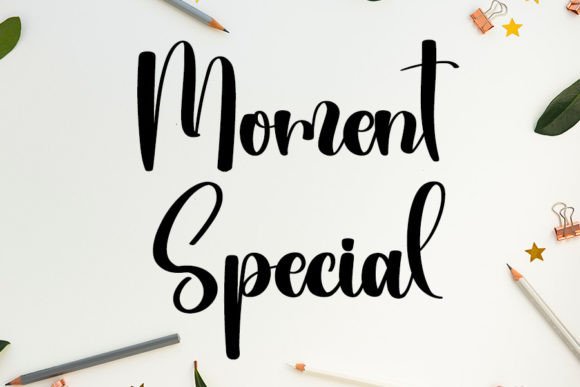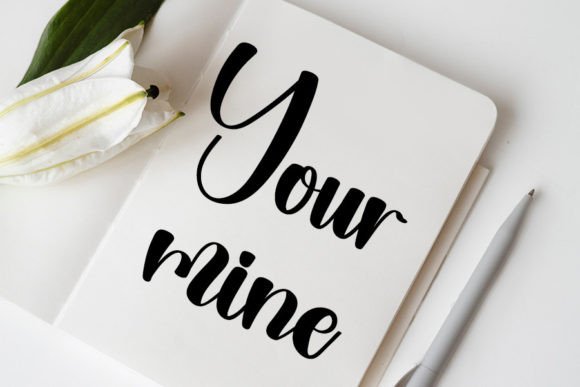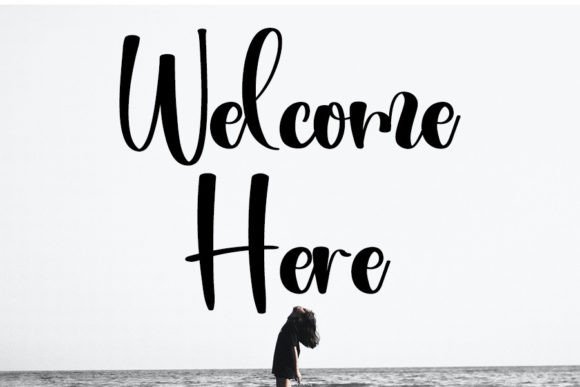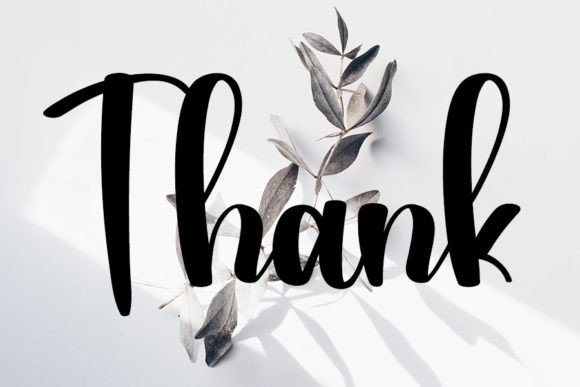
Discover the Elegance of Anymore Font: Elevate Your Designs with Timeless Style
In the world of typography, few fonts manage to capture the essence of elegance and timelessness. However, the Anymore Font stands out as a beacon of sophistication, offering designers and crafters a unique opportunity to infuse their projects with a distinct and beautiful handwritten style. Described as a neat and beautiful handwritten font with an elegant touch, Anymore is perfect for those looking to add a touch of class and refinement to their favorite projects.
The Distinctive Charm of Anymore Font
What sets Anymore Font apart is its incredibly distinct style. In an era where fonts often lean towards being modern or minimalist, Anymore brings a refreshing change with its classic yet contemporary appeal. Its elegant touch is not just a feature; it’s an experience that transforms your designs, making them stand out in a crowded digital landscape. Whether you’re working on a branding project, crafting a beautiful wedding invitation, or designing a captivating blog, Anymore Font provides the perfect blend of sophistication and charm.
Why Fall in Love with Anymore Font?
There are several reasons why designers and crafters fall in love with Anymore Font:
- Timeless Style: Unlike trends that fade with time, Anymore boasts a timeless quality that ensures your designs remain relevant and stylish for years to come.
- Elegant Touch: The font’s elegant nature makes it versatile, suitable for a wide range of projects from luxury branding to elegant stationery.
- Distinctiveness: In a sea of generic fonts, Anymore offers a unique flair that can make your designs instantly recognizable.
- Readability: Despite its elegant and intricate design, Anymore maintains a high level of readability, making it perfect for both headings and body text.
Using Anymore Font for Spectacular Designs
The true potential of Anymore Font is unleashed when used in designs. Here are a few ideas on how to make the most of this beautiful font:
- Branding and Logotypes: The unique and elegant style of Anymore Font makes it an excellent choice for logos and brand identities that wish to convey sophistication and luxury.
- Wedding and Event Stationery: Create stunning wedding invitations, menus, and event programs that reflect the elegance and joy of the occasion.
- Web Design: Enhance your website’s aesthetic with Anymore Font, making it not just a digital space but an experience for your visitors.
- Packaging: Stand out on the shelves with product packaging that combines Anymore’s elegance with your product’s unique personality.
Tips for Working with Anymore Font
To ensure you get the most out of Anymore Font, consider the following tips:
- Pair it Wisely: Combine Anymore with complementary fonts to create visual interest and hierarchy in your designs.
- Experiment with Colors: While the font itself is elegant, experimenting with different colors can further enhance its beauty and adaptability.
- Play with Sizes: Don’t be afraid to vary font sizes to create emphasis and guide the viewer’s eye through your design.
Anymore Font is more than just a typeface; it’s a design element that can elevate your projects with its timeless elegance and distinct style. Whether you’re a professional designer or a crafting enthusiast, embracing Anymore Font can open up new avenues for creativity and expression. So, fall in love with its beauty, and let it guide you in creating spectacular designs that leave a lasting impression.